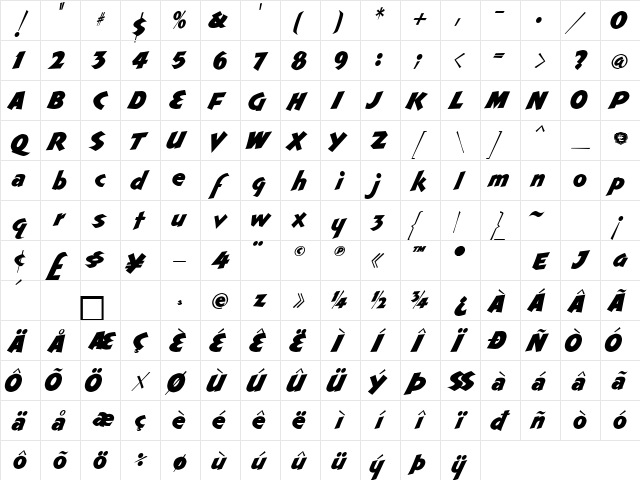
LHF Cincinnati Poster Regular
Design Context for LHF Cincinnati Poster
LHF Cincinnati Poster is a composed and adaptable typeface that performs quietly and consistently across a wide range of design contexts.
Pro Tip: Use LHF Cincinnati Poster in both headline and body roles to test its range before committing to a single application.